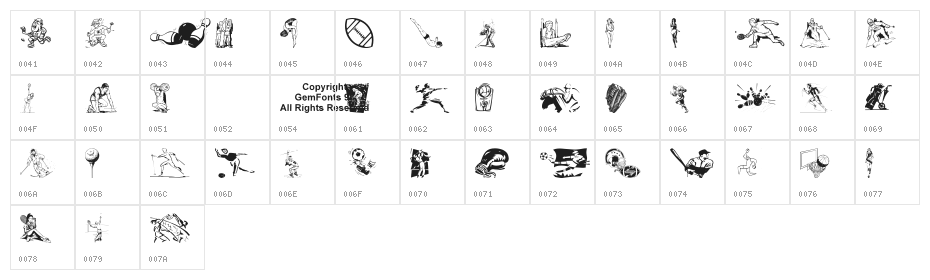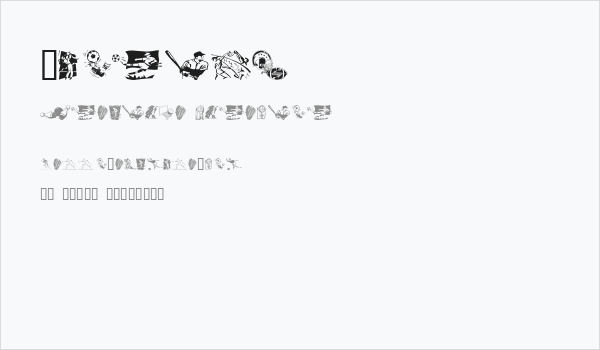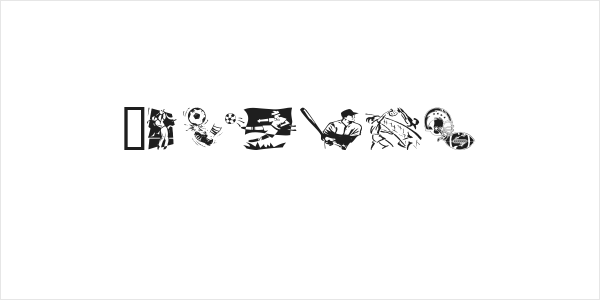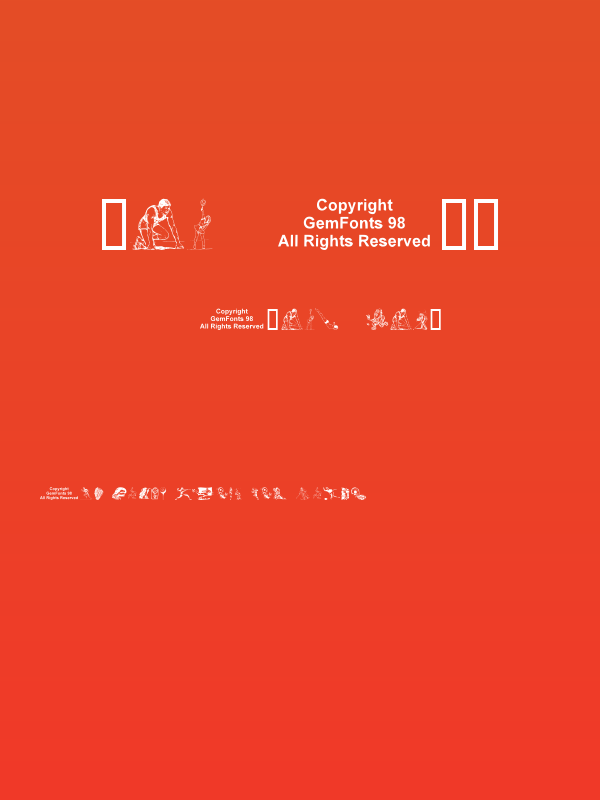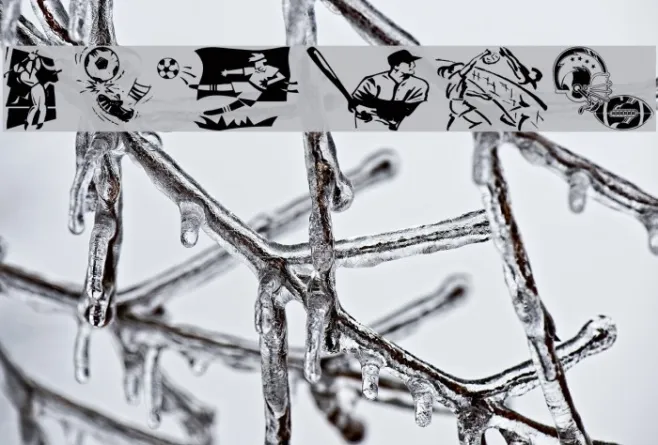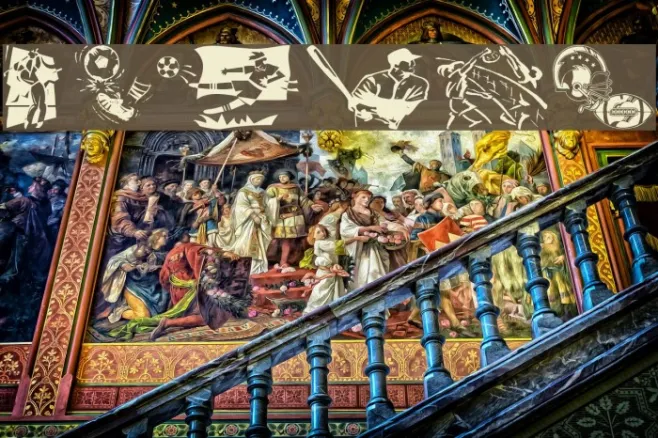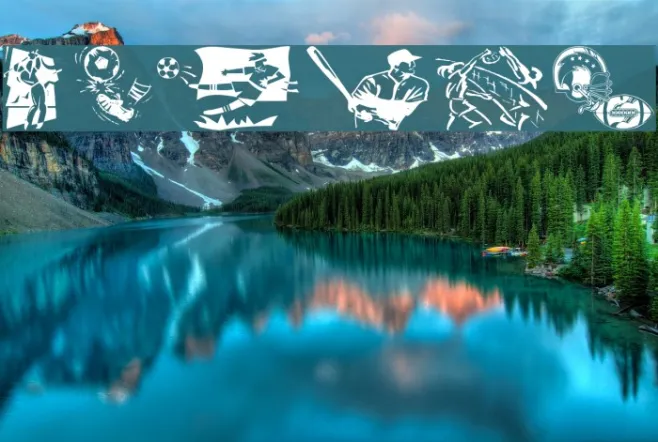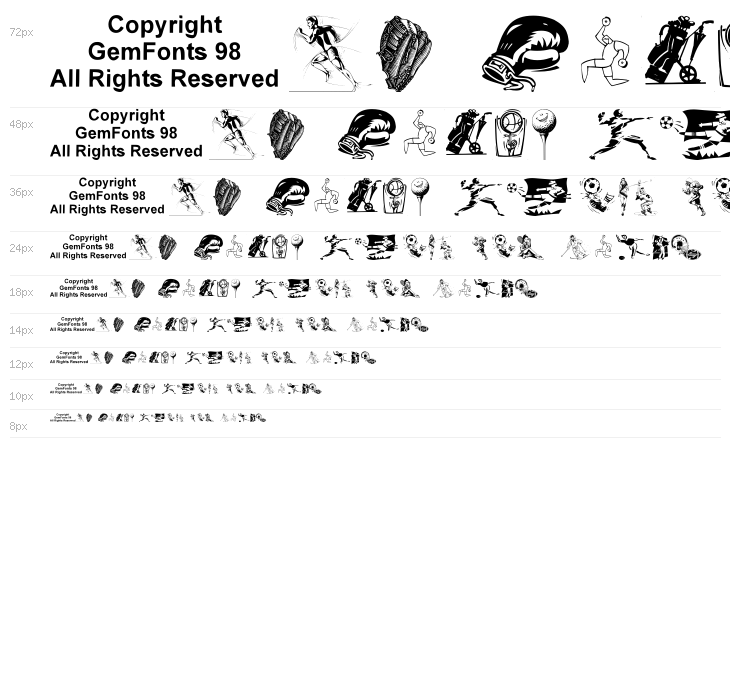
Sportzs Font
Sportzs Description
A decorative dingbat font featuring detailed black-and-white illustrations of various sports and athletic activities, each character representing a different sport or action scene.
| Overall Style | Decorative, Thematic |
| Use Case | Icons, Decorative elements, Themed graphics |
| Proposed Projects | Sports event posters, activity flyers, educational materials, themed invitations, scrapbooking. |